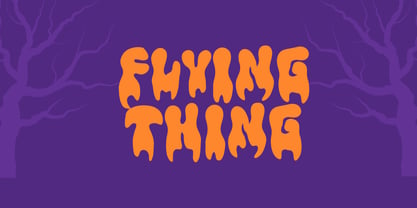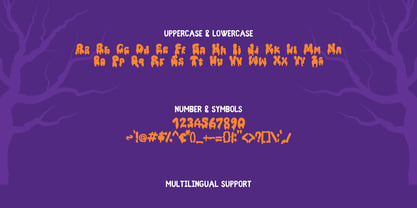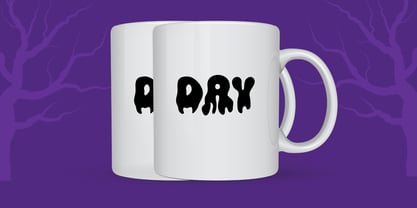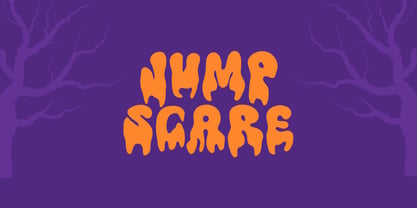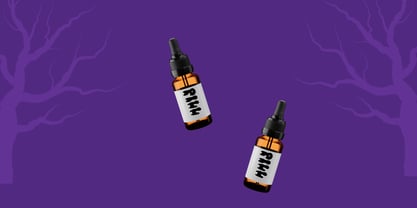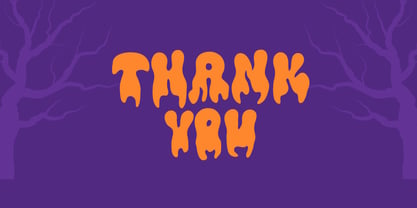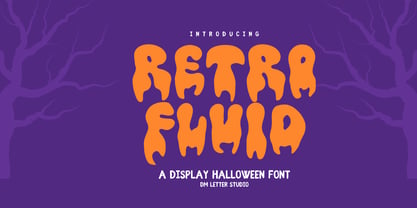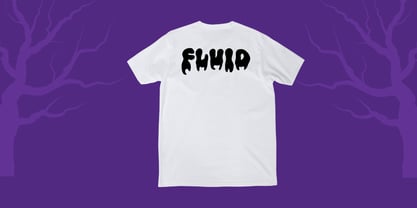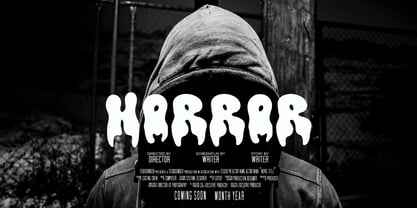
Meet Retro Fluid Font
Retro Fluid Font pours vintage energy into smooth, flowing letterforms. Curves feel soft and bold at once. Lines connect like ink on glossy posters. Because the shapes stay open, your titles read fast on shirts, stickers, posters, packaging, and thumbnails. Use it for music covers, soda-pop labels, summer promos, and playful brand logos. Moreover, Retro Fluid loves gradients, glow, and subtle grain, so even quick mockups look finished.
Where Retro Fluid Font shines
Set punchy phrases like Good Vibes, Sunset Mix, or a short brand name. Then add layered outlines, soft shadows, or gel highlights for depth. Since spacing is tuned for headlines, layouts come together in minutes. As a result, you can build full bundles for printables, POD, and social reels without heavy tweaking. Plus, the flowing rhythm keeps names readable on tags and small thumbnails.
Design tips for liquid retro type
Keep copy short and let Retro Fluid Font lead. Pair big headlines with a simple geometric sans for captions. Meanwhile, use curved baselines and arched badges to echo the flow. Because the forms are round and friendly, glitter textures, pastel gradients, and sticker borders work very well. However, avoid long sentences on tiny labels. Names, dates, and bold phrases hit hardest.
Uppercase, lowercase, numbers, punctuation
Multilingual Latin support
Why creators choose Retro Fluid
You want happy nostalgia with clean readability. Retro Fluid delivers. It grabs attention in crowded feeds, speeds production, and scales from mini stickers to posters without losing charm.